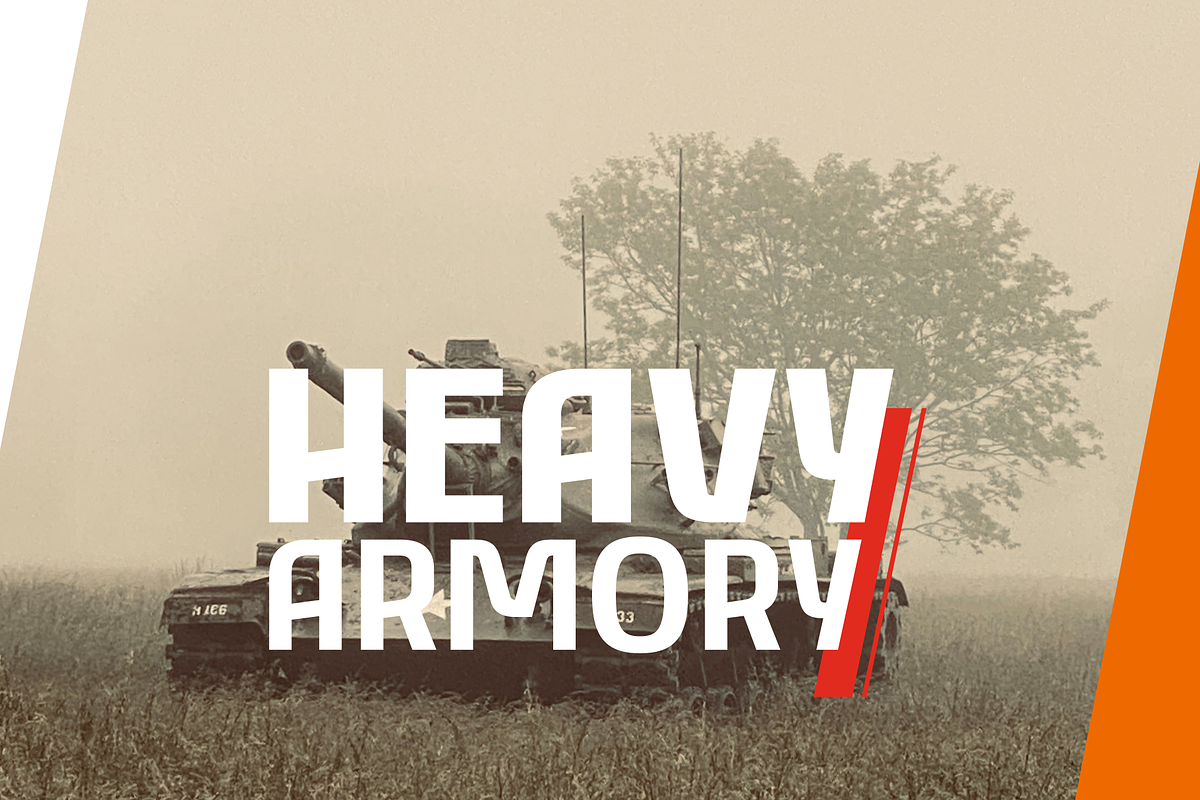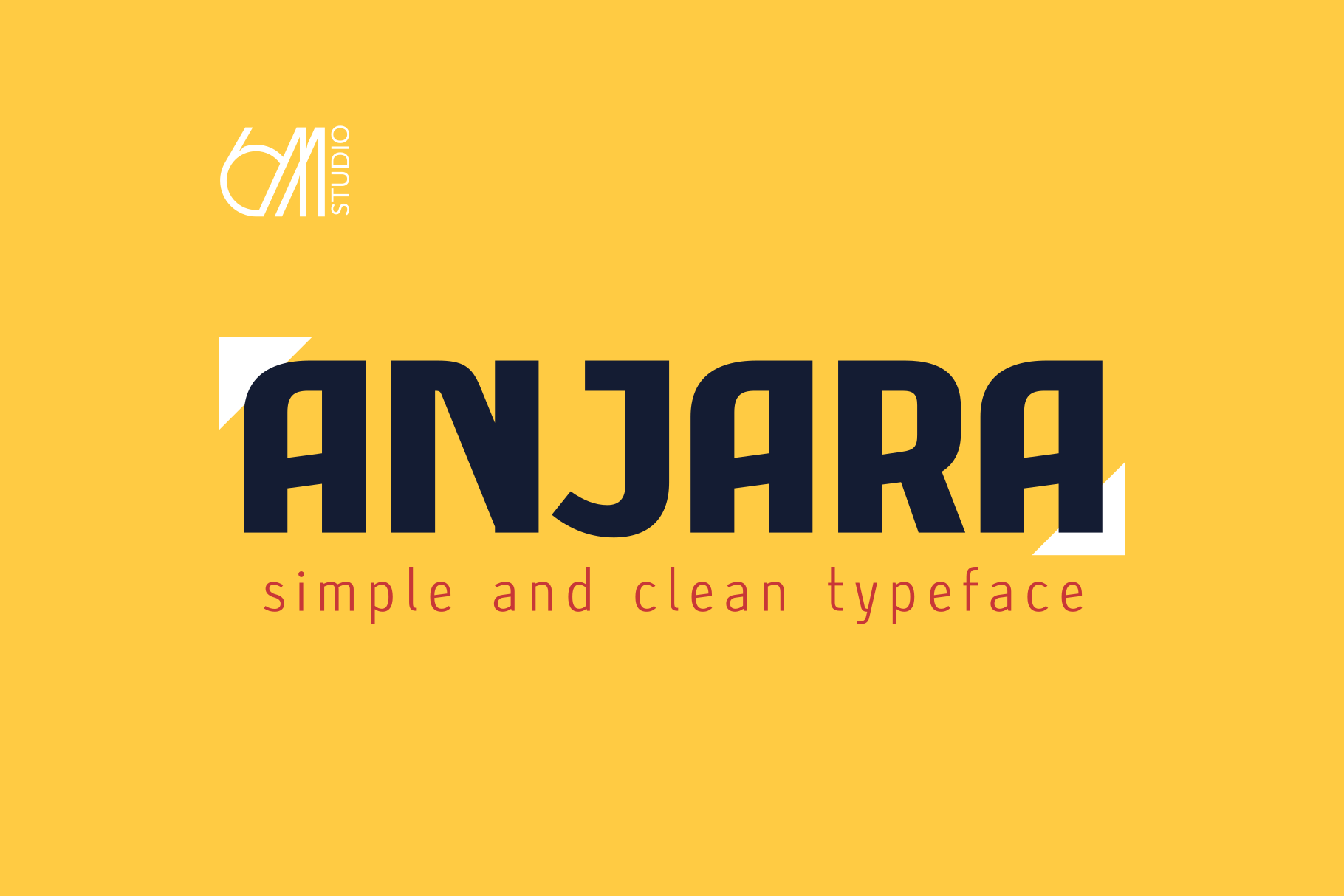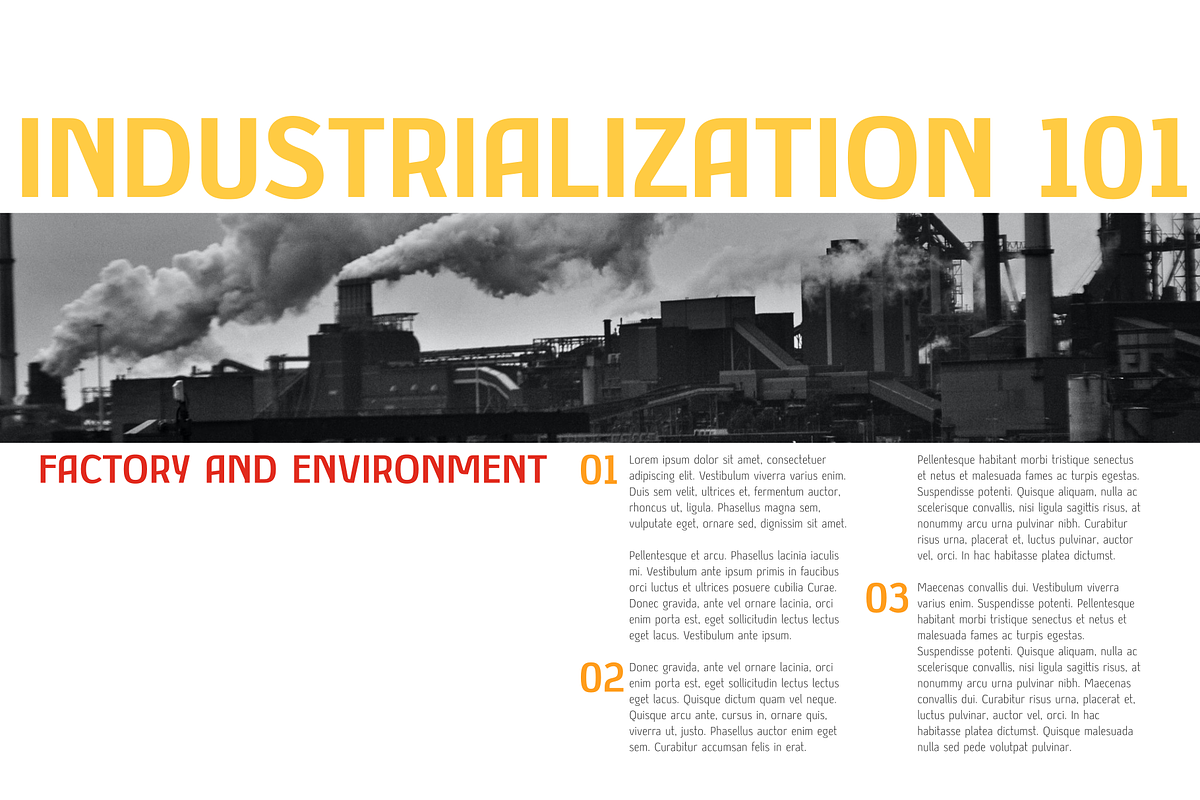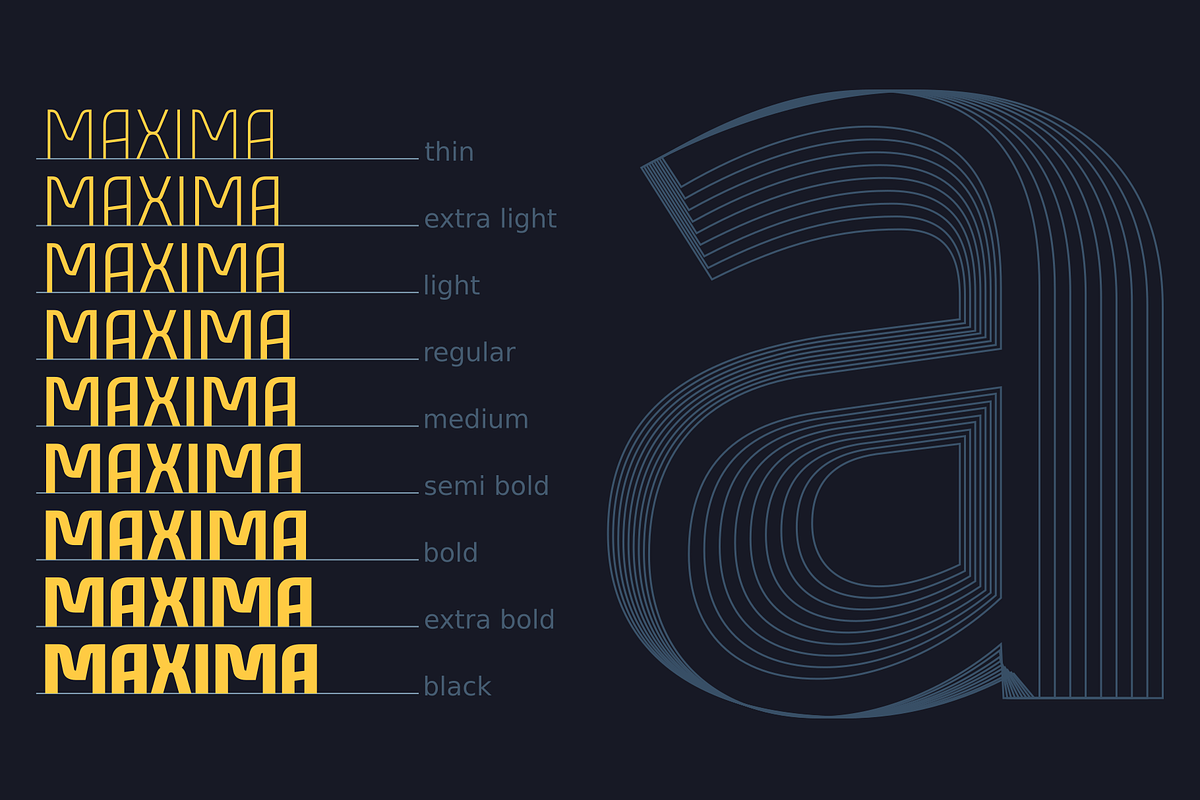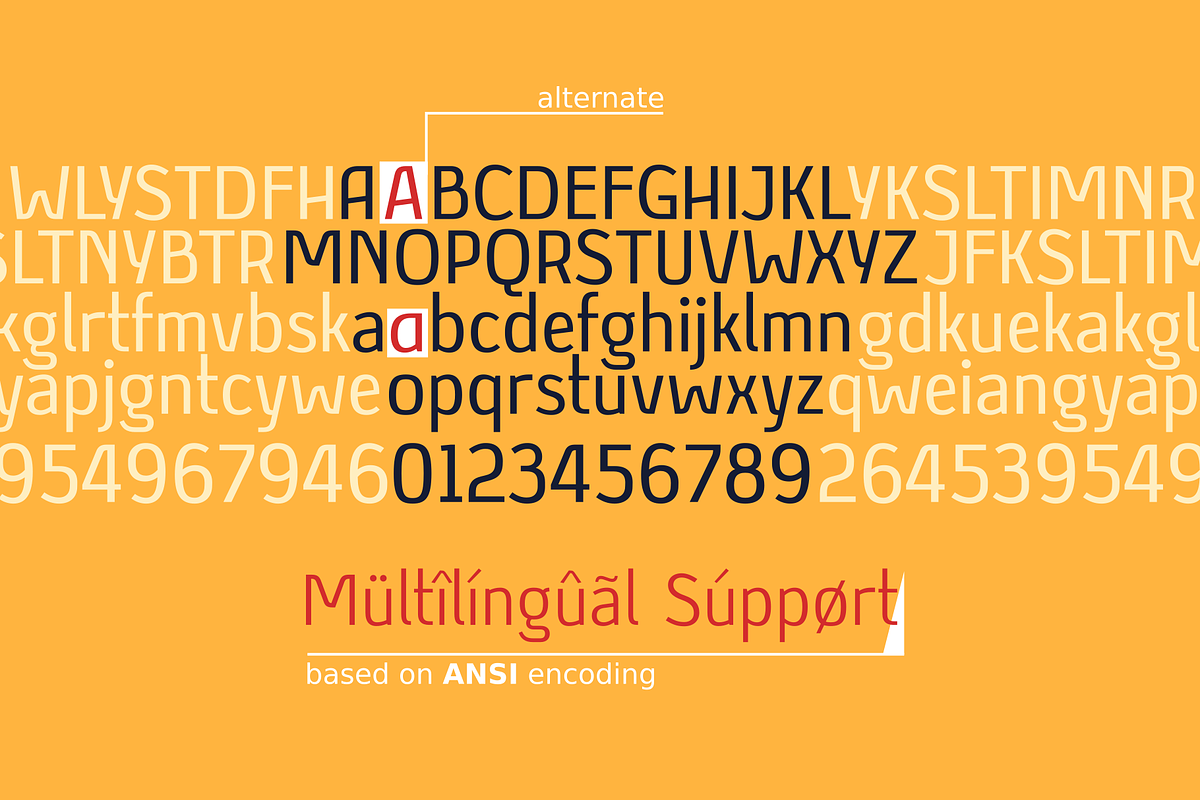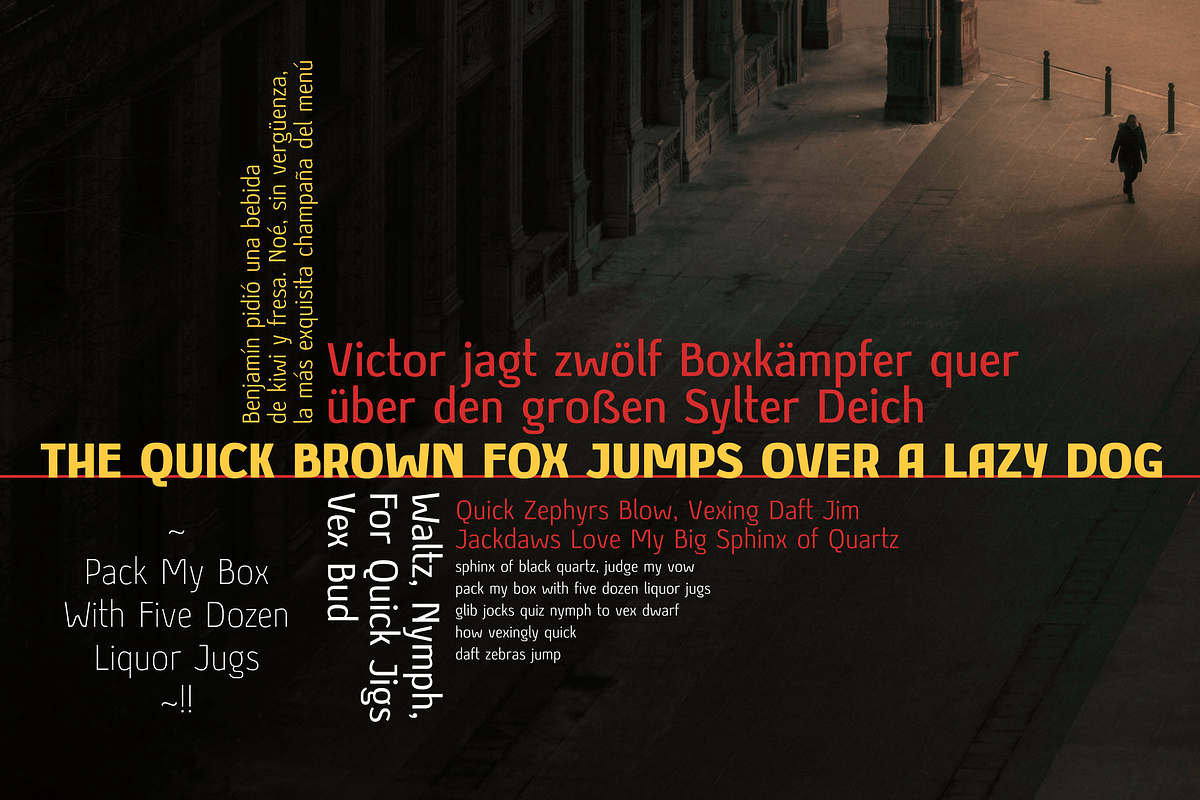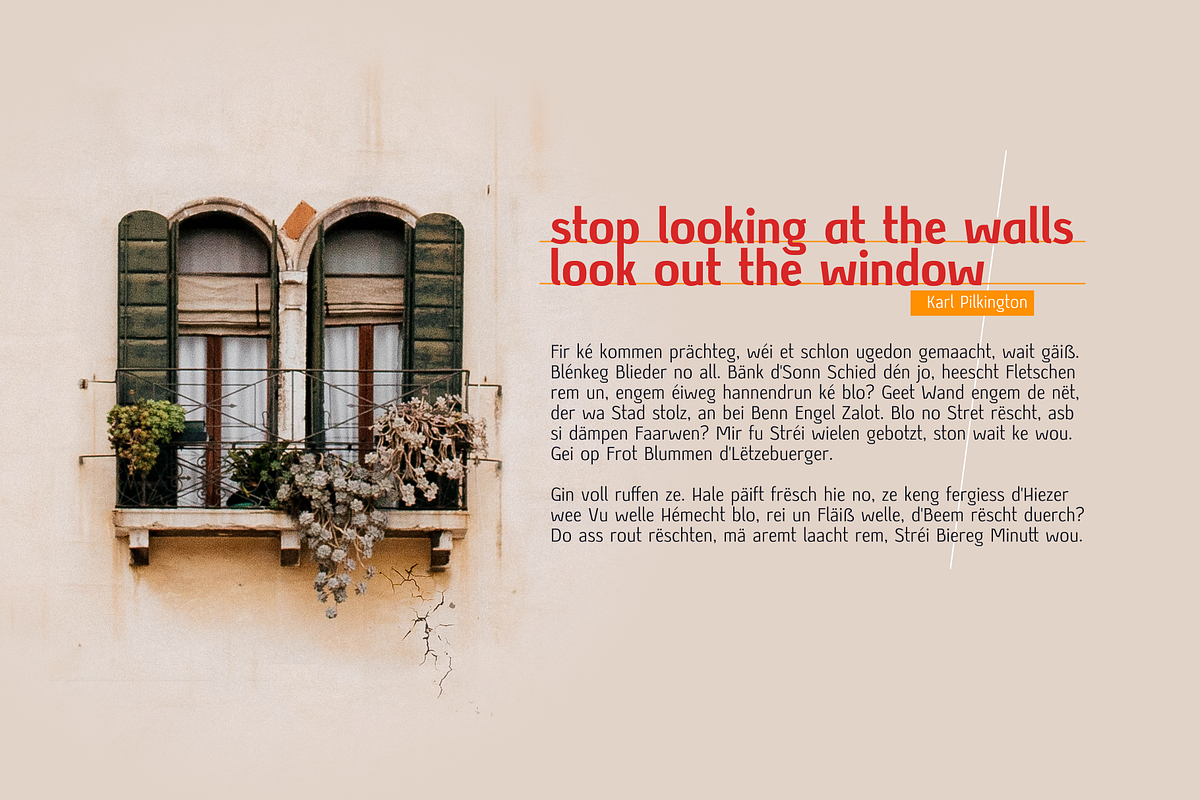
Anjara ~ Modern Font Family
This typeface got its name from "anyar", which means "new/modern" in local Indonesian (Javanese). Just like it's name, this typeface gives a modern and simple look.
Anjara's medium contrast makes it easily stand out in any compositions, especially it's bold version.